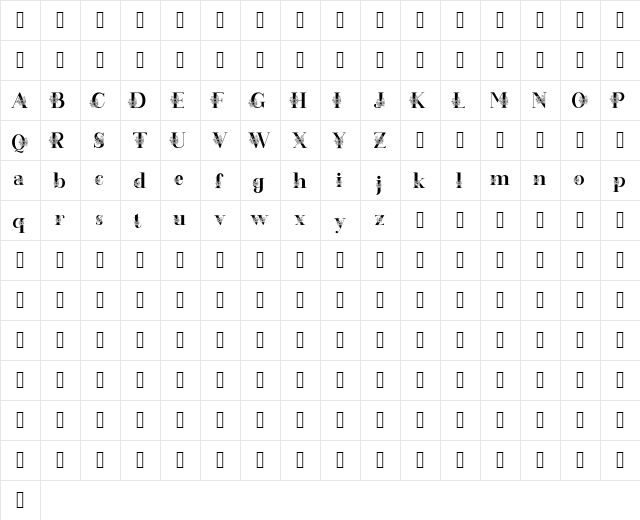
Sunflorcrafter Craft
Design Context for Sunflorcrafter Typeface
Sunflorcrafter is a composed and adaptable typeface that performs quietly and consistently across a wide range of design contexts.